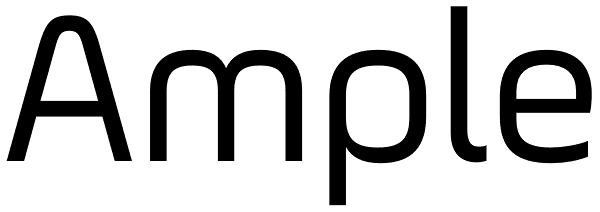
Ample
Ample is a display type family, optical mono linear and a bit squarish in nature. It has a smooth curve instead of sharp angles formed by the junction of two strokes, which is a prominent feature of its design. It is designed to be a little...